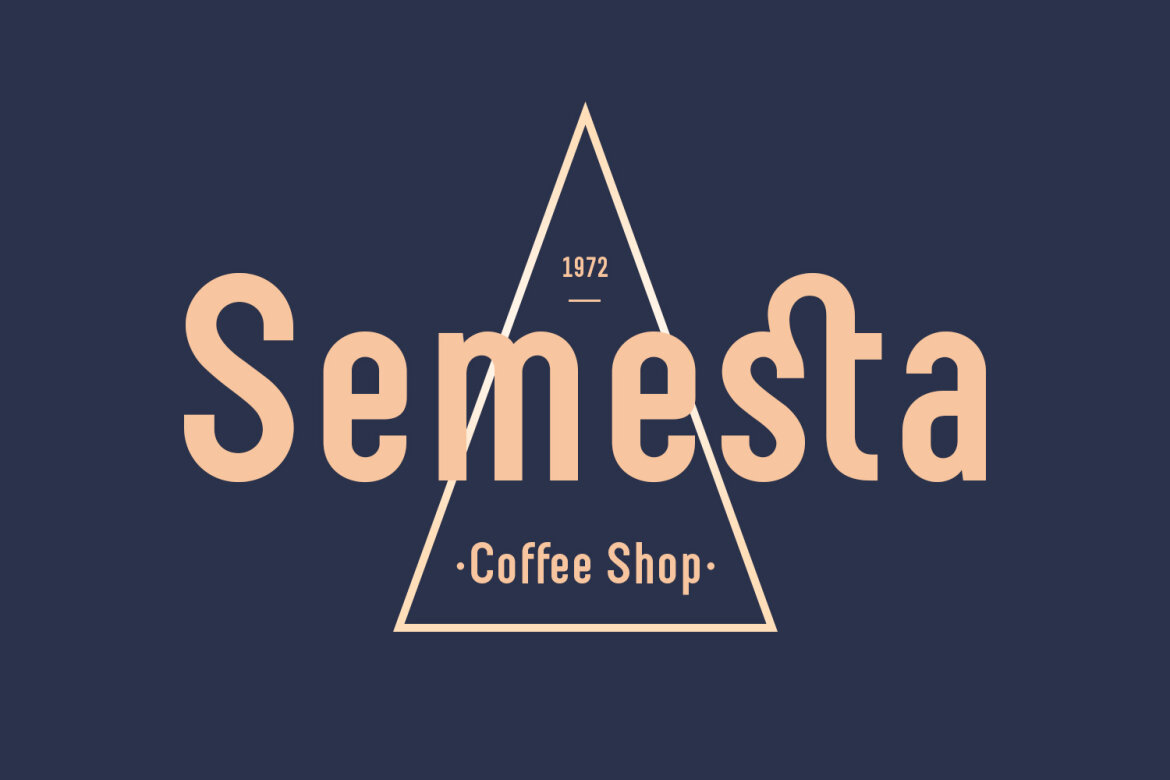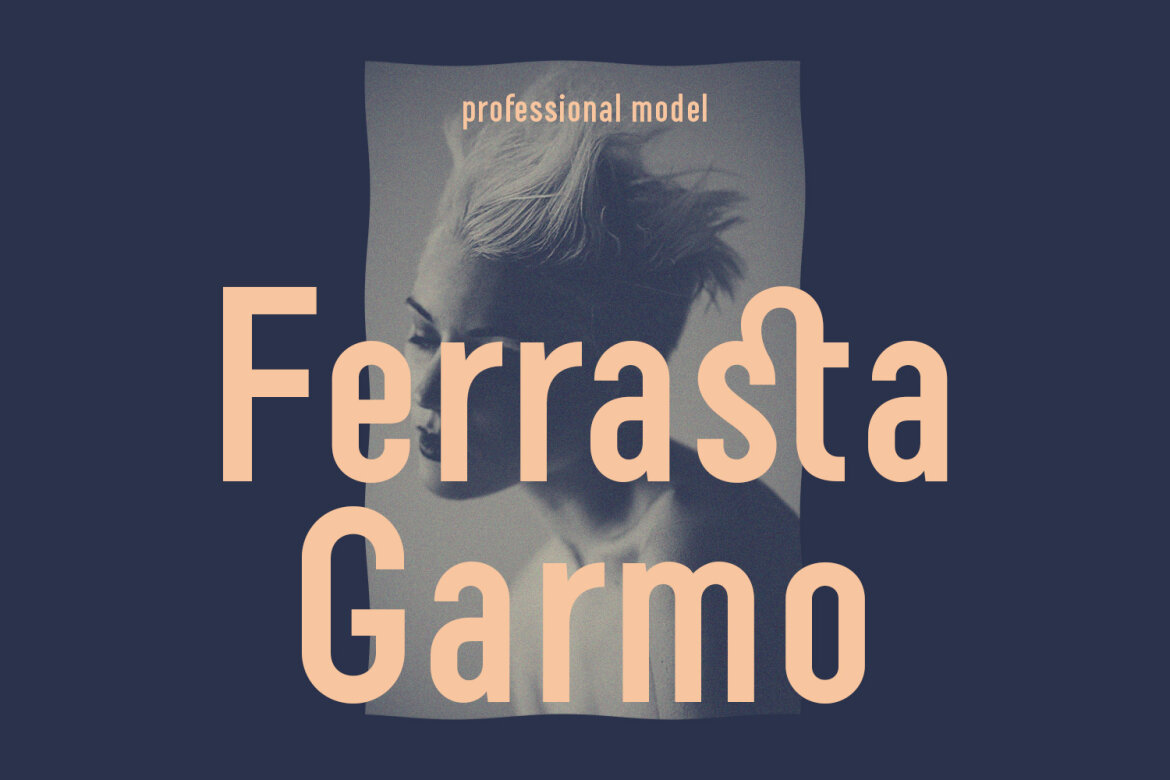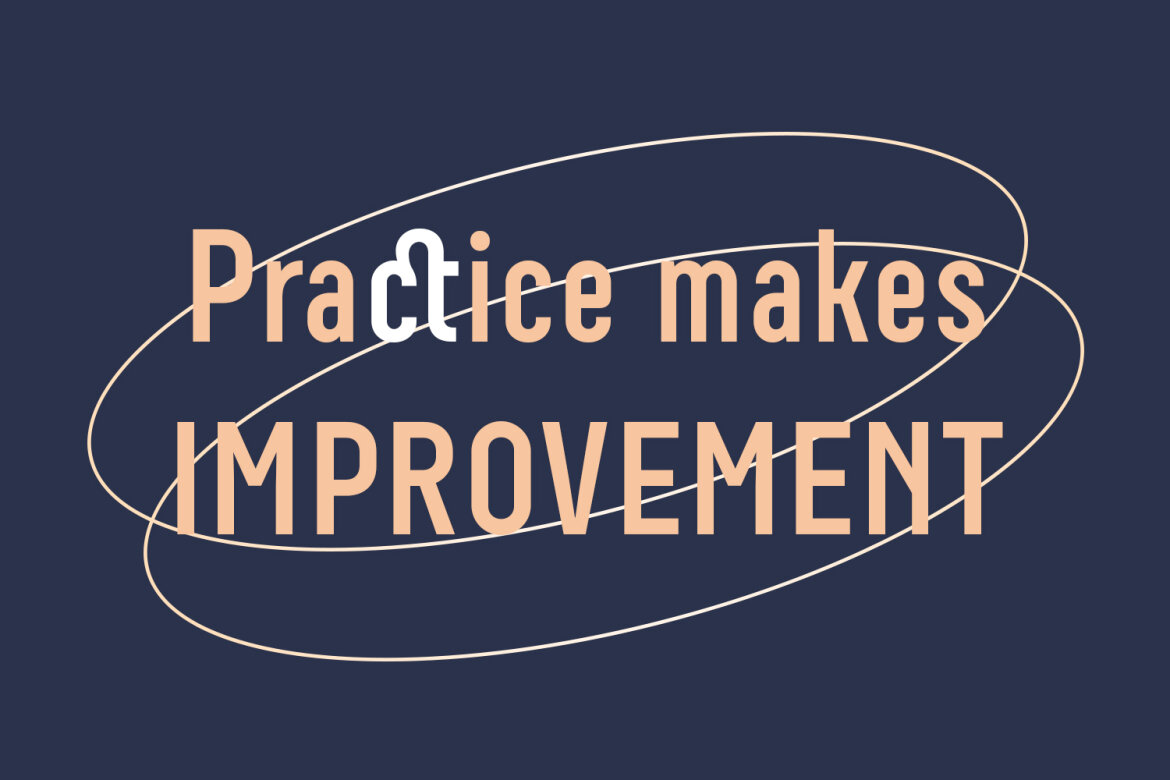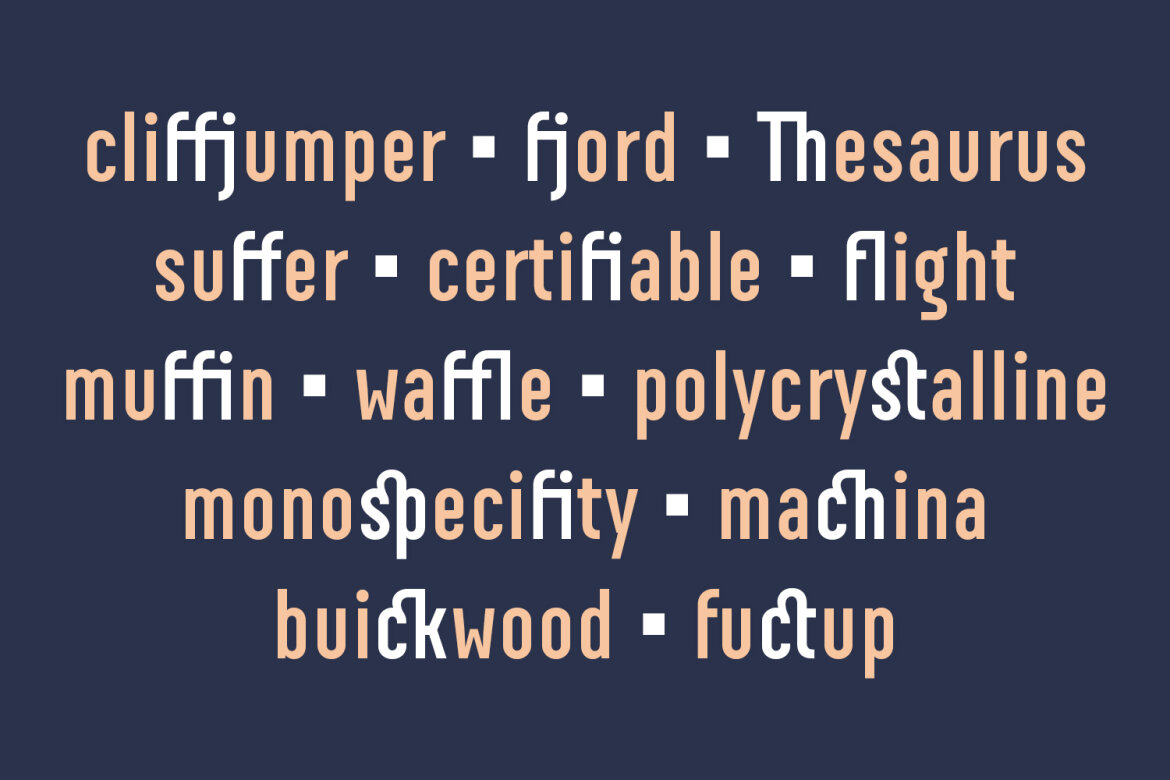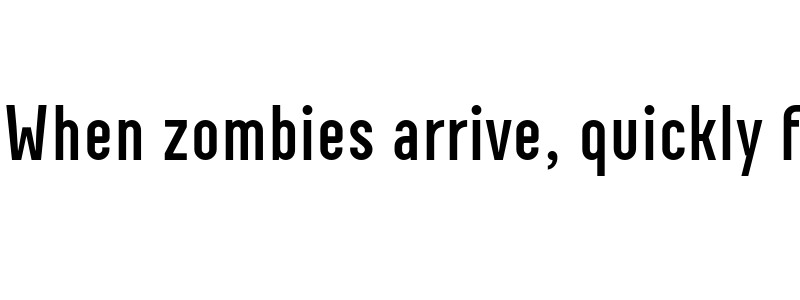
Boscha Condensed FREE Sans Font
Boscha is a condensed sans serif font. With medium tall stroke, fun character with a bit of ligatures. To give you an extra creative work. Boscha font support multilingual more than 100+ language. This font is good for logo design, Social media, Movie Titles, Books Titles, a short text even a long text letter and good for your secondary text font with sans or serif. Make a stunning work with Boscha font.